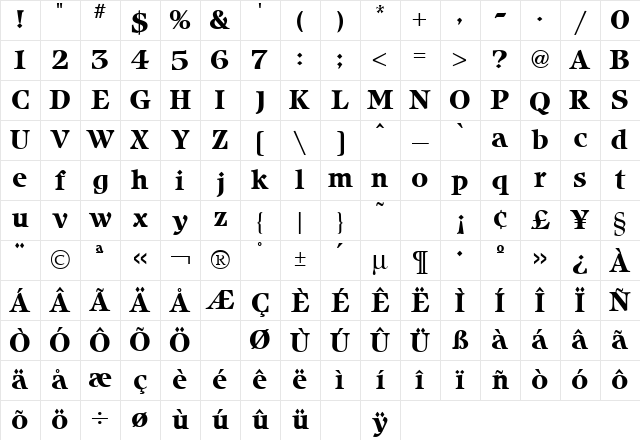
Complete Isbell Bold glyph index. Displaying only characters natively supported by Isbell Bold font.
Isbell is a composed and adaptable typeface that performs quietly and consistently across a wide range of design contexts. Its bold stroke weight gives it real presence on the page.